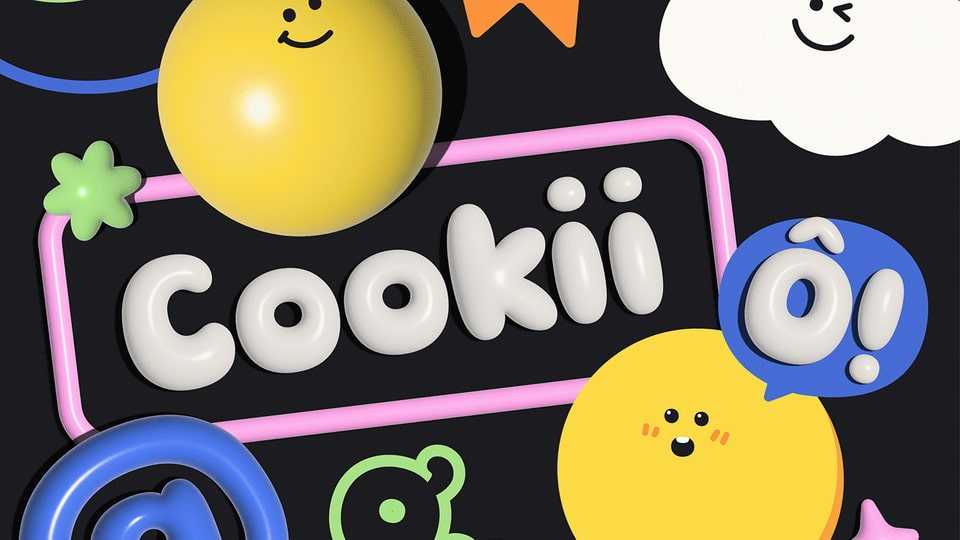
Download Cookii font, a bubbly bold typeface that is not only youthful and playful but also incredibly versatile. Cookii font can be a perfect choice for eye-catching and cheerful design.